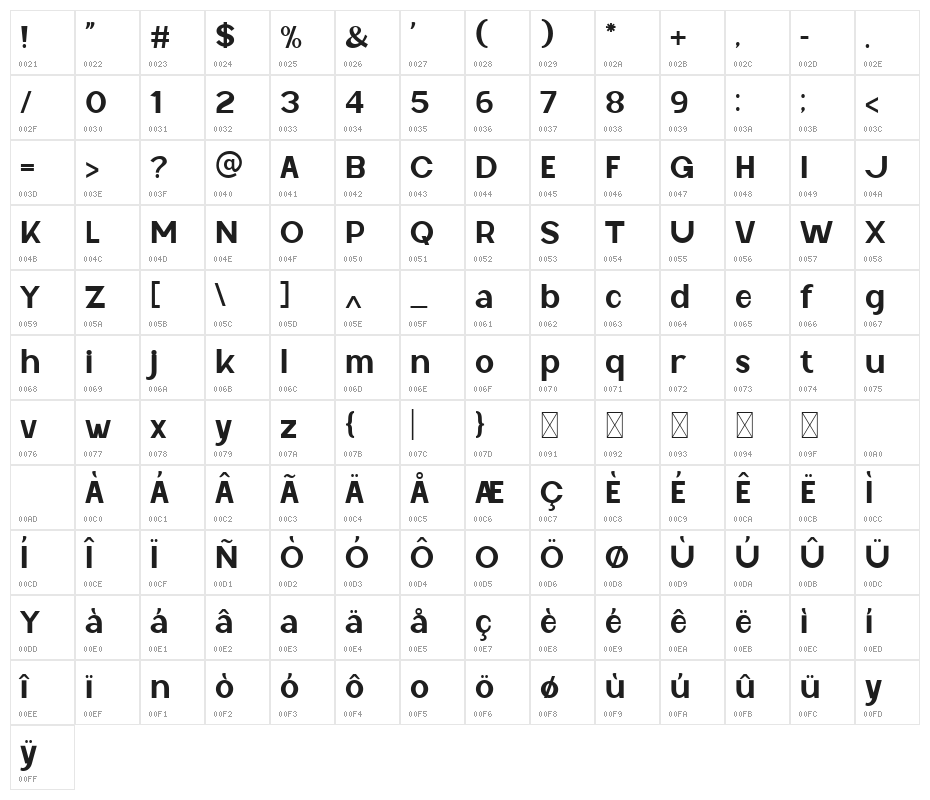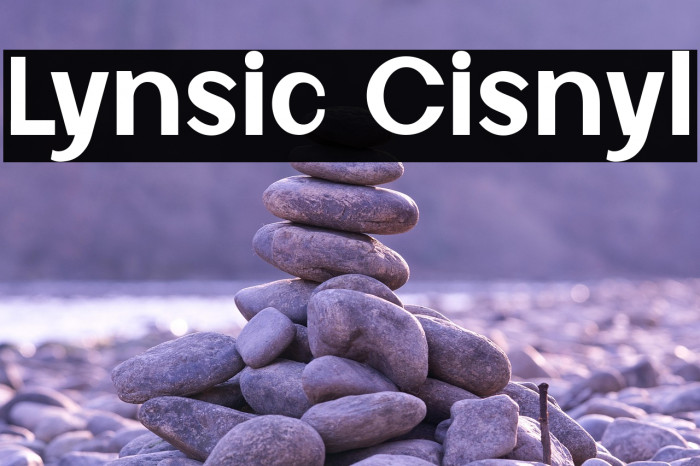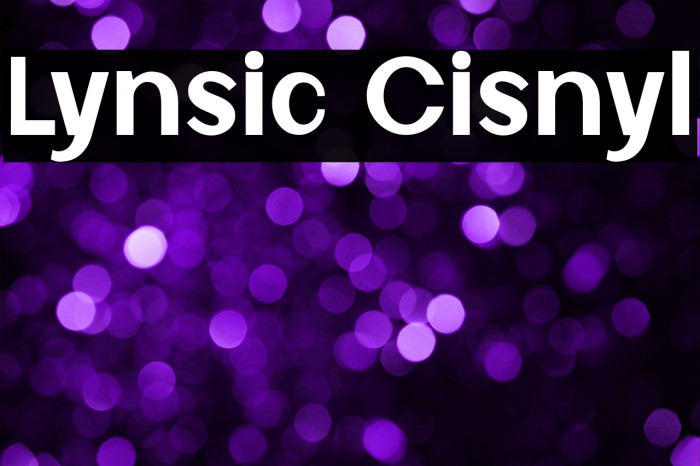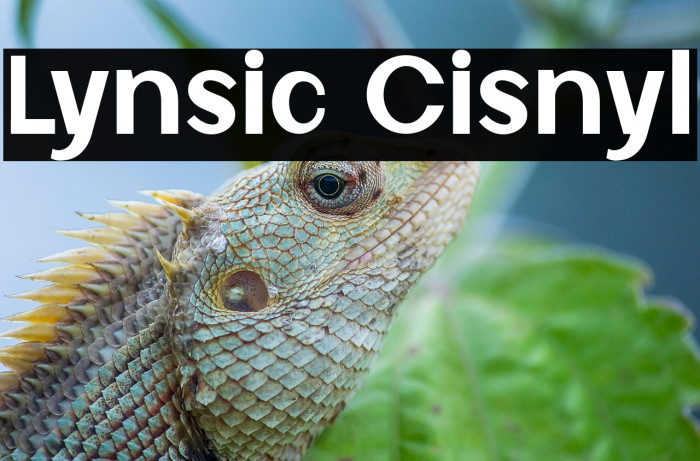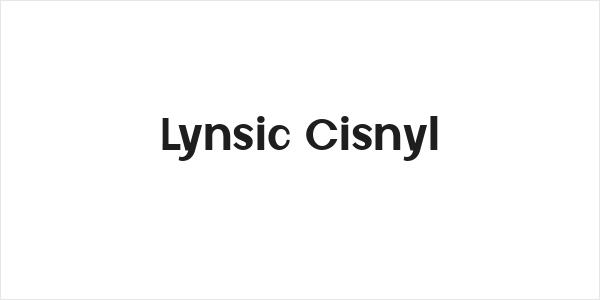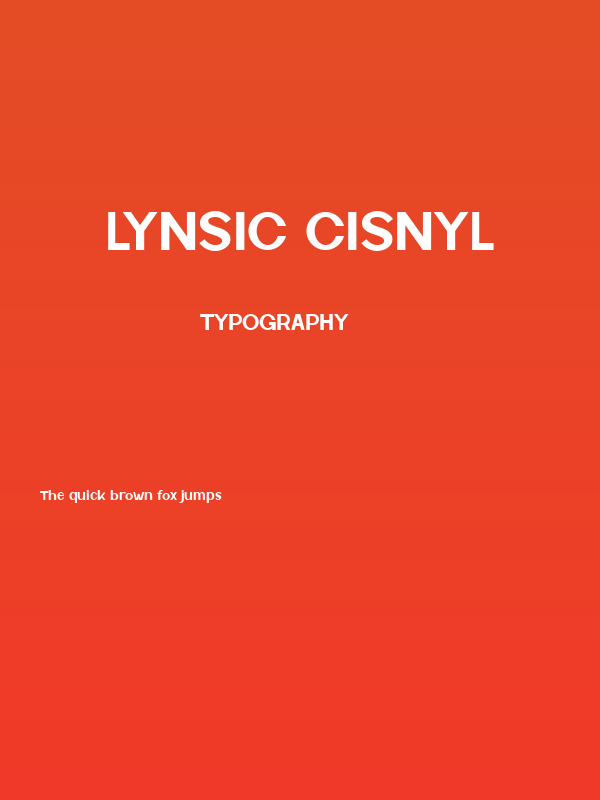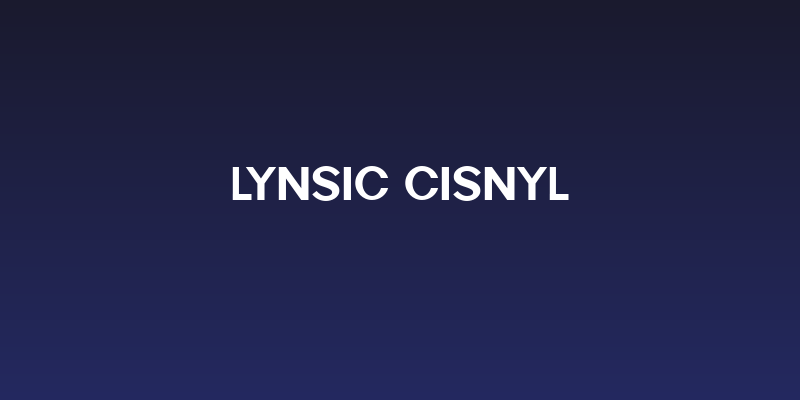
Lynsic Cisnyl Font
Lynsic Cisnyl Description
This font features a clean and modern sans-serif style with uniform stroke widths, providing a sleek and professional appearance. The characters are well-balanced, with a consistent height and width that enhances readability. The uppercase letters are bold and assertive, while the lowercase letters maintain a friendly and approachable look. The numerals are clear and distinct, making them suitable for both digital and print media. Special characters are well-integrated, ensuring versatility across various applications. The overall design is minimalistic yet impactful, making it ideal for contemporary design projects.
| Use Case | Headlines, Body text, Logos |
| Proposed Projects | Ideal for branding, web design, advertising, and editorial layouts. |